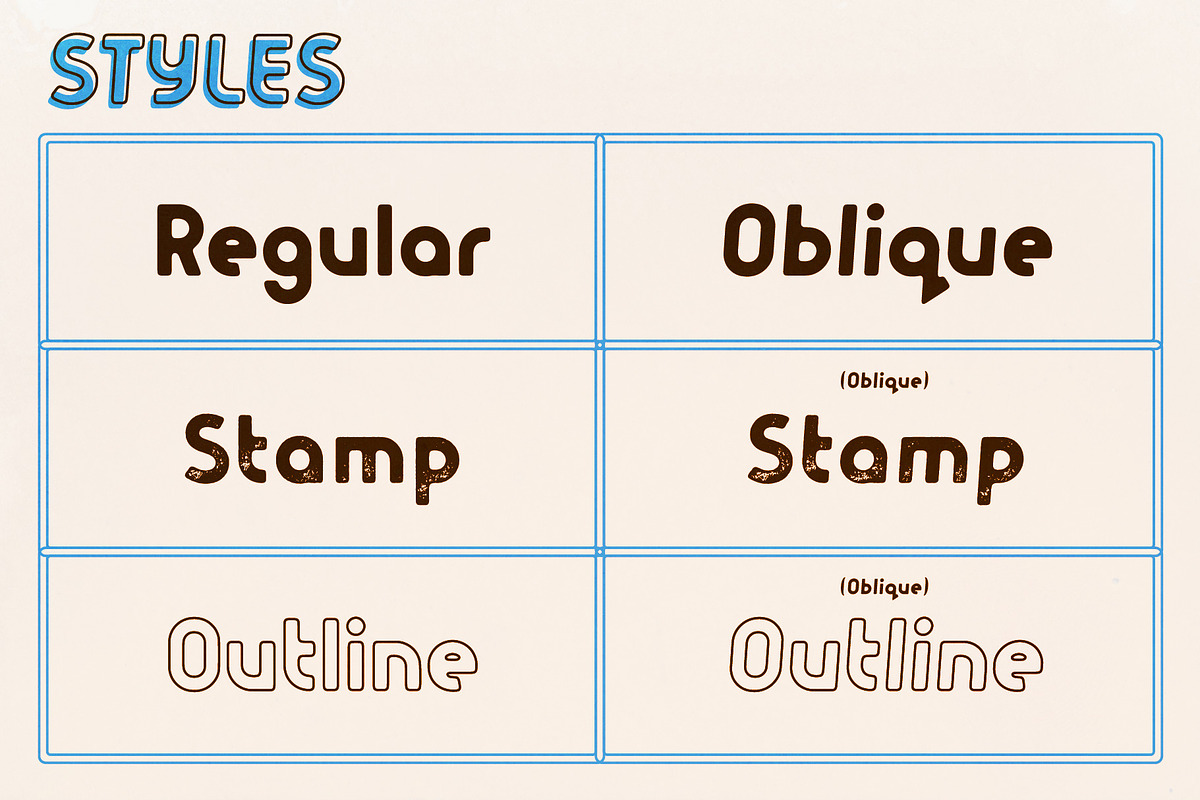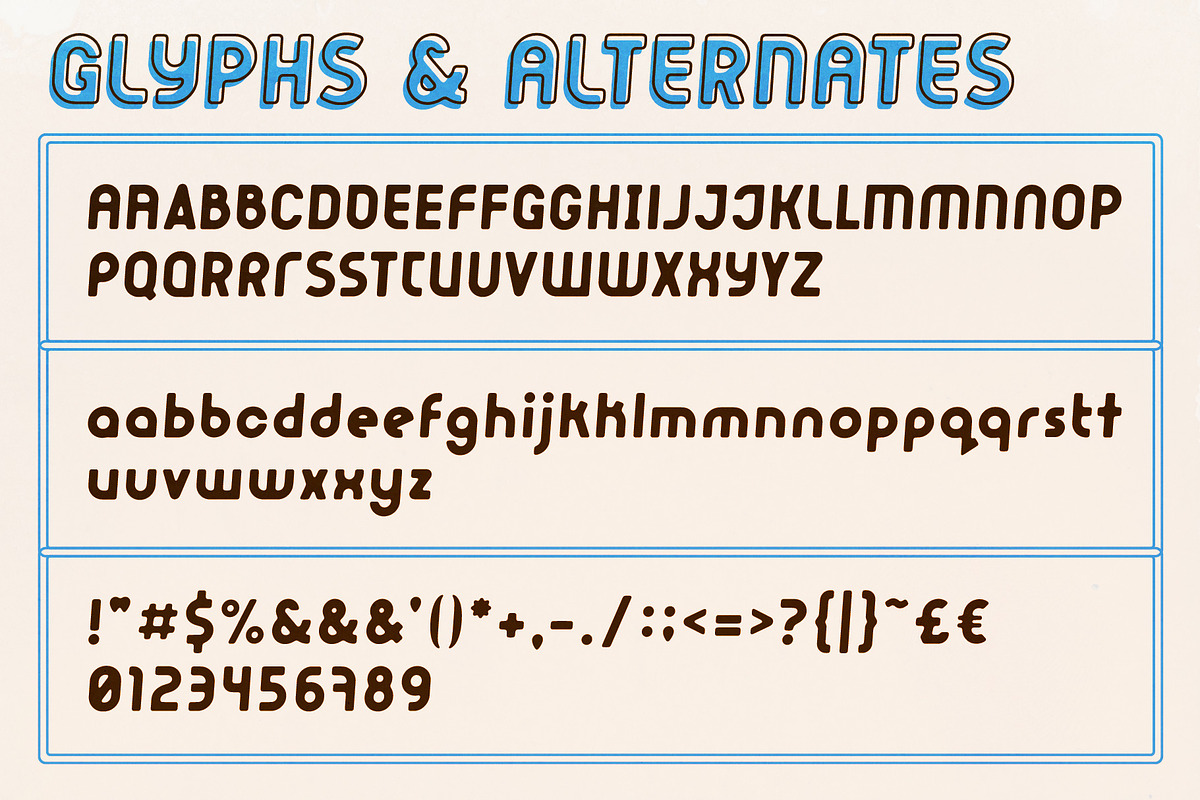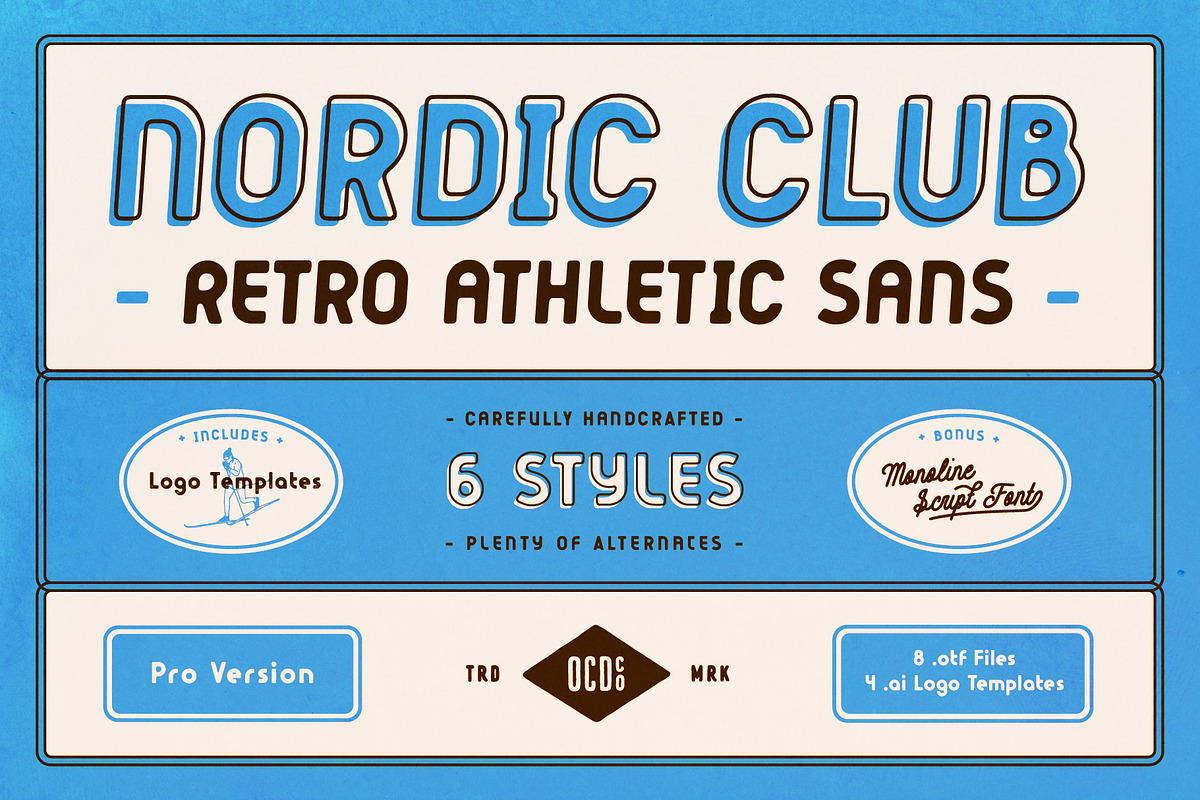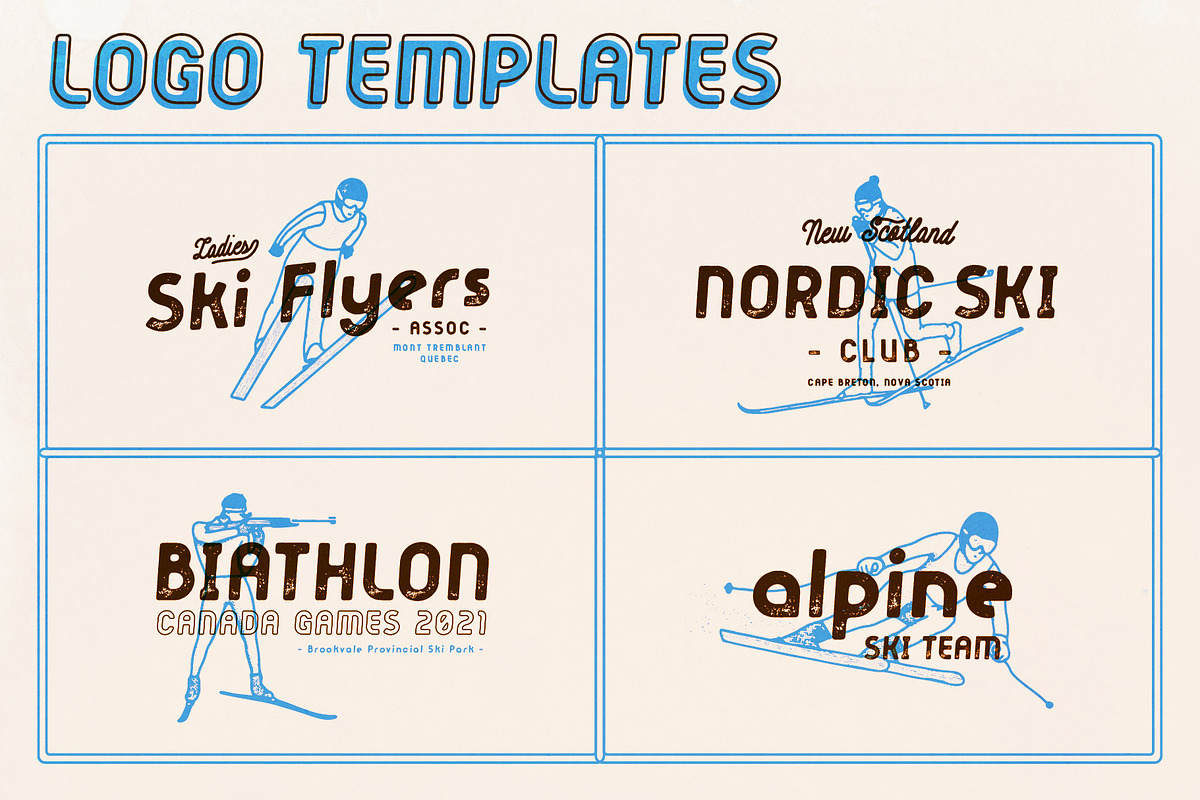
Nordic Club - Retro Athletic Sans
Nordic Club comes in 6 carefully crafted styles with plenty of alternates. It is sleek, bold and rounded and conveys that winter sport look. Made as an ode to the ultimate winter activity, Nordic Skiing.